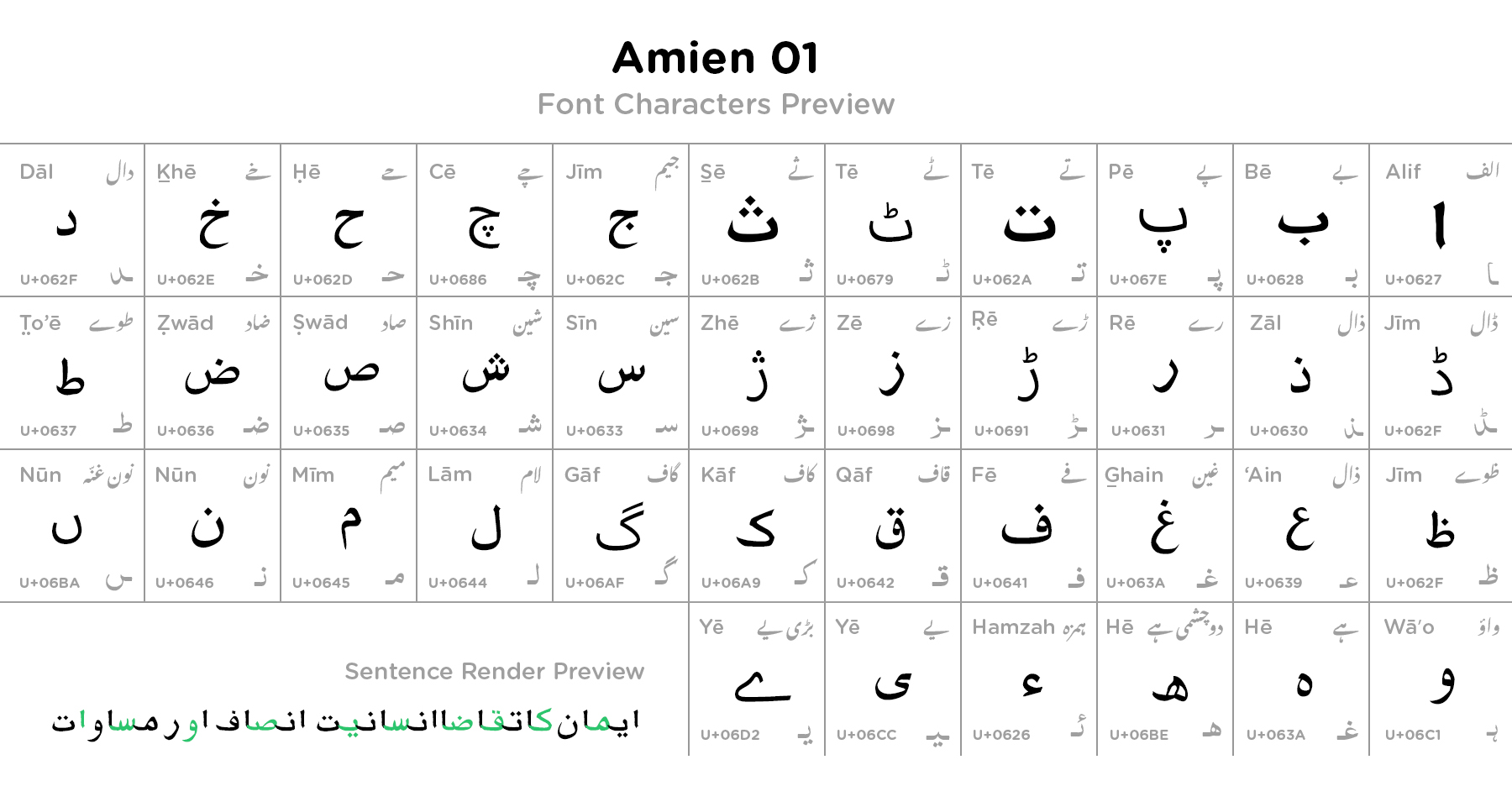
Amien 01, a trademark of Amien World of Islam, is an irregular and dynamic Quranic font released on October 11, 2017. Inspired by the Ruqaa script with modern influences, it offers a natural feel and Qalam writing style suitable for various Islamic projects. With 100 characters and 99 glyphs, the font ensures compatibility with Urdu, Arabic, Latin, Persian, and more languages. However, its Unicode support is limited to Basic Latin and Latin-1 Supplement blocks. The font's irregular and thick appearance may affect its screen legibility, especially for longer text passages. Therefore, it is best suited for shorter text blocks where its impactful and changing strokes can shine.